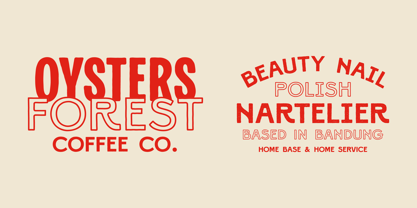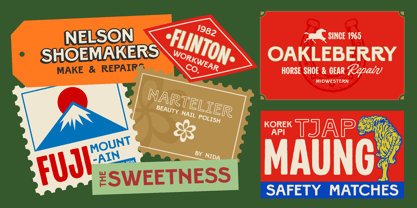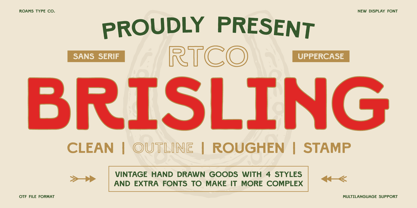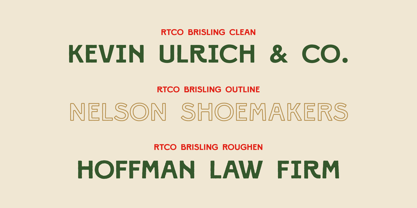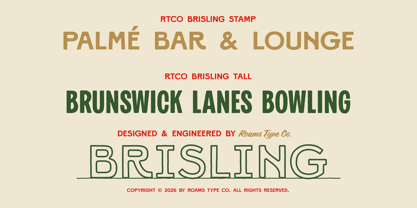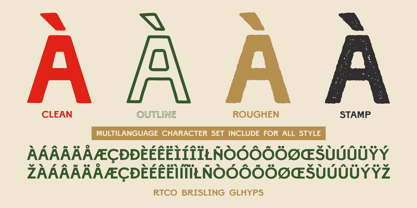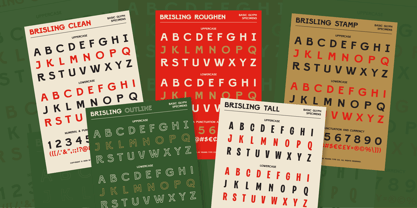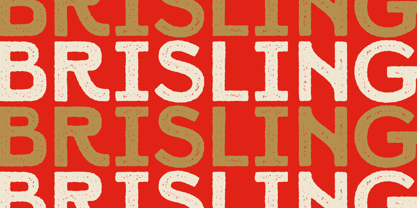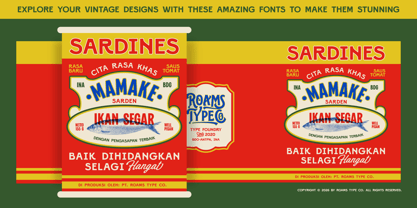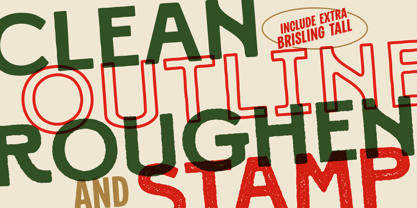
RTCO BRISLING
La famille de polices RTCO BRISLING a été conçue par Abdul Rochman et publiée par Roams Type Co. RTCO BRISLING contient 5 styles et options de package familial. En savoir plus sur cette famille
RTCO BRISLING inspired by vintage sans serif display font crafted with a hand-drawn soul. Designed to bring a nostalgic yet clean aesthetic, this typeface blends classic retro charm with modern usability—perfect for standout typography projects. With its strong uppercase structure and slightly rugged character, Brisling delivers a striking presence whether used in branding, packaging, posters, or merchandise design. What You Get: RTCO BRISLING Clean RTCO BRISLING Outline RTCO BRISLING Roughen RTCO BRISLING Stamp | Uppercase | Numerals & Punctuation | Multilanguage Support
Roams Type was founded in mid-2020 by Abdul Rochman inspired by vintage typeface designs. the main source of inspiration and most of the products released for the apparel industry, food and beverage industry as brand identity, etc. Therefore Roams Type Co creates unique and vintage works with high quality craft typography & Graphic Assets for your product design needs.